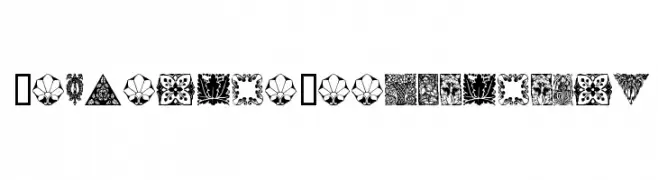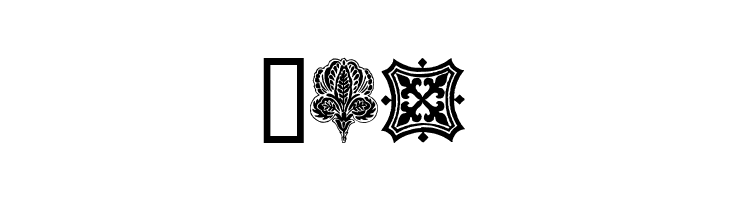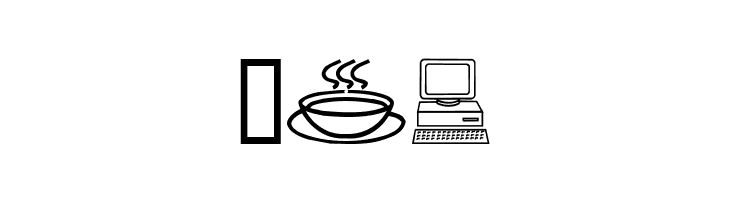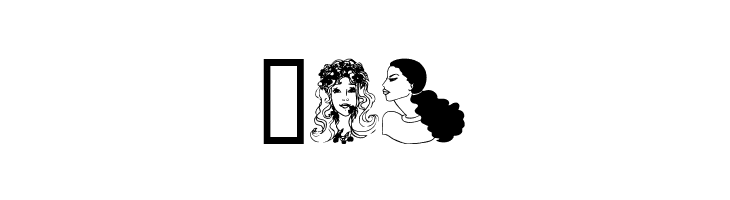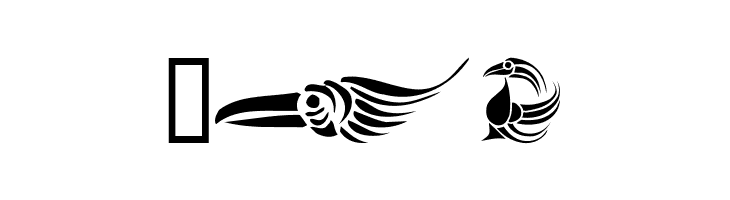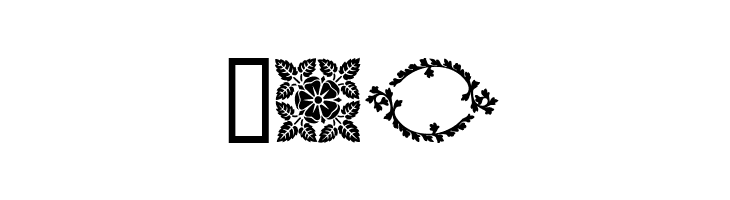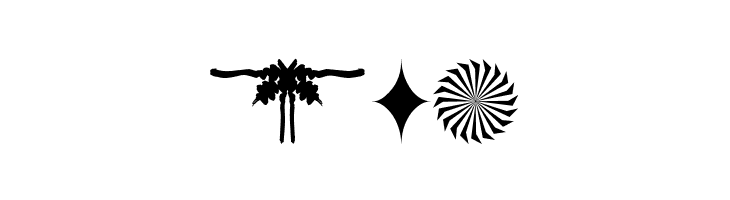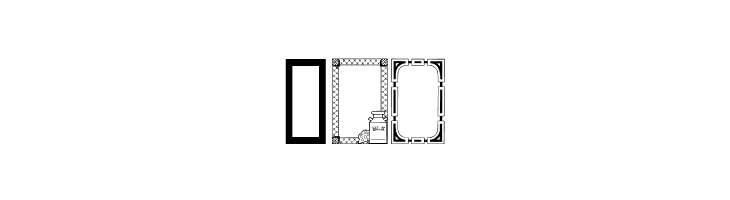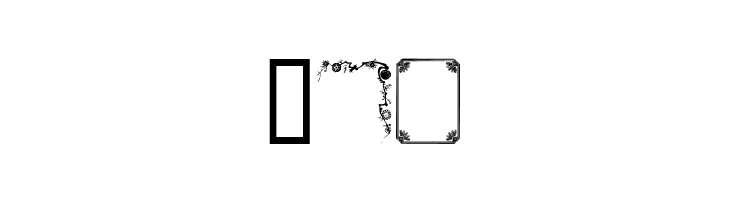
• OldFloralIllustration
Ornate floral illustration dingbat set with vintage flair.
• DesignerMotifs
Ornate, vintage-inspired decorative motifs with intricate detailing.
• ScrappersElements
A bold, geometric font with characters enclosed in rectangular frames, offering a modern and structured look.
• Around the house
Outlined, boxy decorative font ideal for icon overlays.
• Face of a Lady
Artistic font with illustrated women's faces as glyphs.
• Birdies
Ornamental font with each glyph as a distinct bird illustration.
• Fruityand veggie
A playful, blocky font with a digital, pixel-art style.
• MedievalMotif
Ornamental motifs with a medieval aesthetic.
• DesignerDing
Ornamental dingbat set with varied decorative motifs.
• FramesAndBordersII
A collection of intricately designed decorative frames and borders.